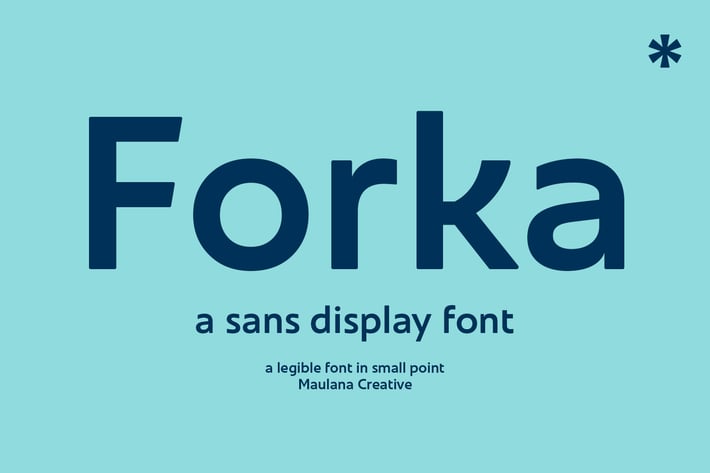
Forka Sans Font
Forka is a minimal modern fun sans serif font. With medium low contrast stroke, fun character with a bit of ligatures and alternates. To give you an extra creative work. Forka font support multilingual more than 100+ language. This font is good for logo design, Social media, Movie Titles, Books Titles, a short text even a long text letter and good for your secondary text font with script or serif. Make a stunning work with Forka font.